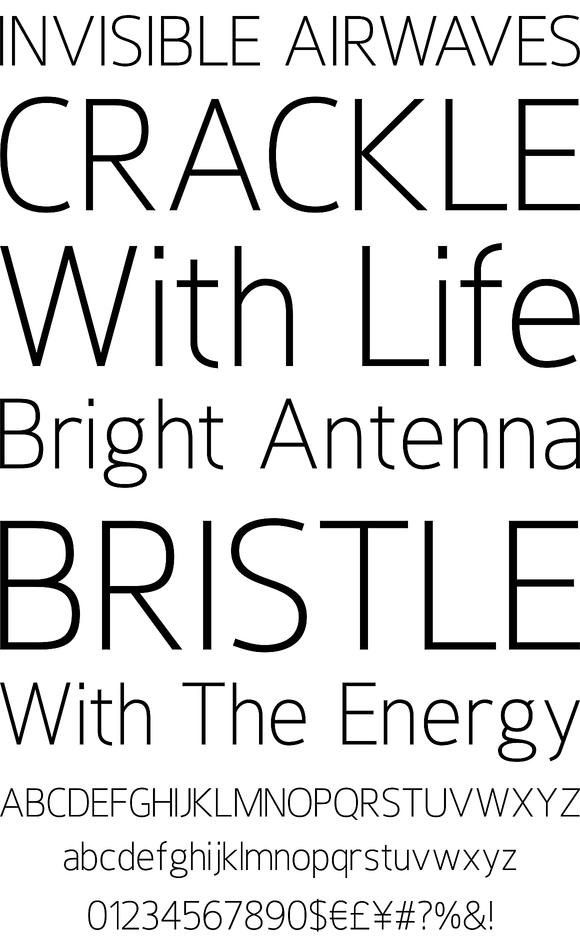
A modern humanistic san serif typeface. The horizontal structure of the font gives it a clean lateral dynamic that is ideal for on screen uses. Also the proportions have been condensed to maximise the use of space across various layouts. Details include 7 weights, a full character set, manually edited kerning and Euro symbol.